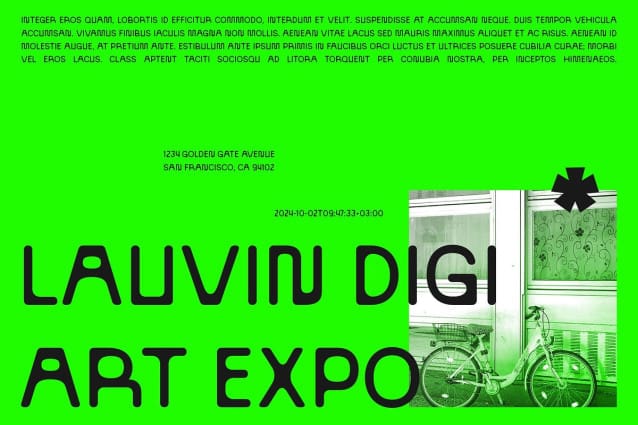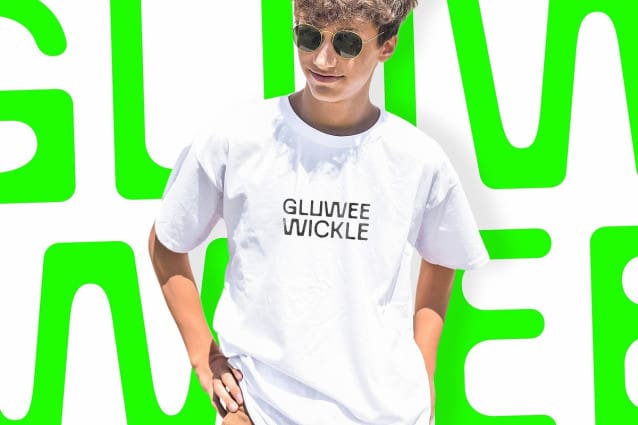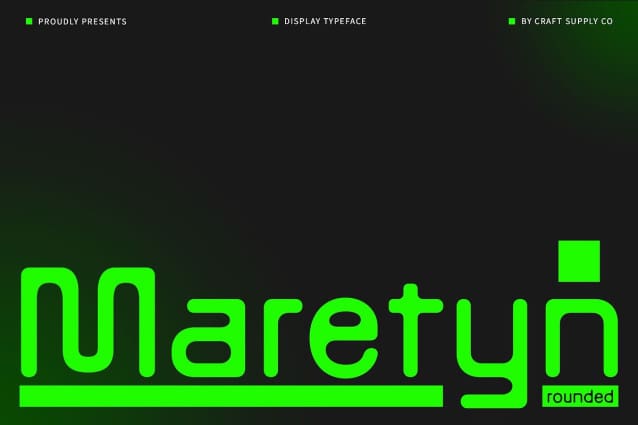
Maretyn Rounded Font
Maretyn Rounded Font is a contemporary sans serif font that beautifully merges grotesque, geometric, and rounded shapes, creating a design that is both modern and visually appealing. With its clean lines and well-balanced geometric forms, this font exudes a professional yet friendly vibe, making it an excellent choice for a variety of design projects.
Softness Meets Readability The rounded elements of Maretyn Rounded add a touch of softness, enhancing its readability across different sizes and applications. This comfort makes it an ideal choice for everything from corporate branding to casual marketing materials. The friendly curves invite engagement, making it particularly effective in conveying messages that resonate with audiences.
Versatile for Diverse Applications One of the standout features of Maretyn Rounded is its adaptability. Whether used in branding, web design, or promotional materials, this font shines with its functional characters and refreshing aesthetic. Its versatility allows it to fit seamlessly into various design contexts, whether you’re crafting a sleek corporate identity or a vibrant creative project.